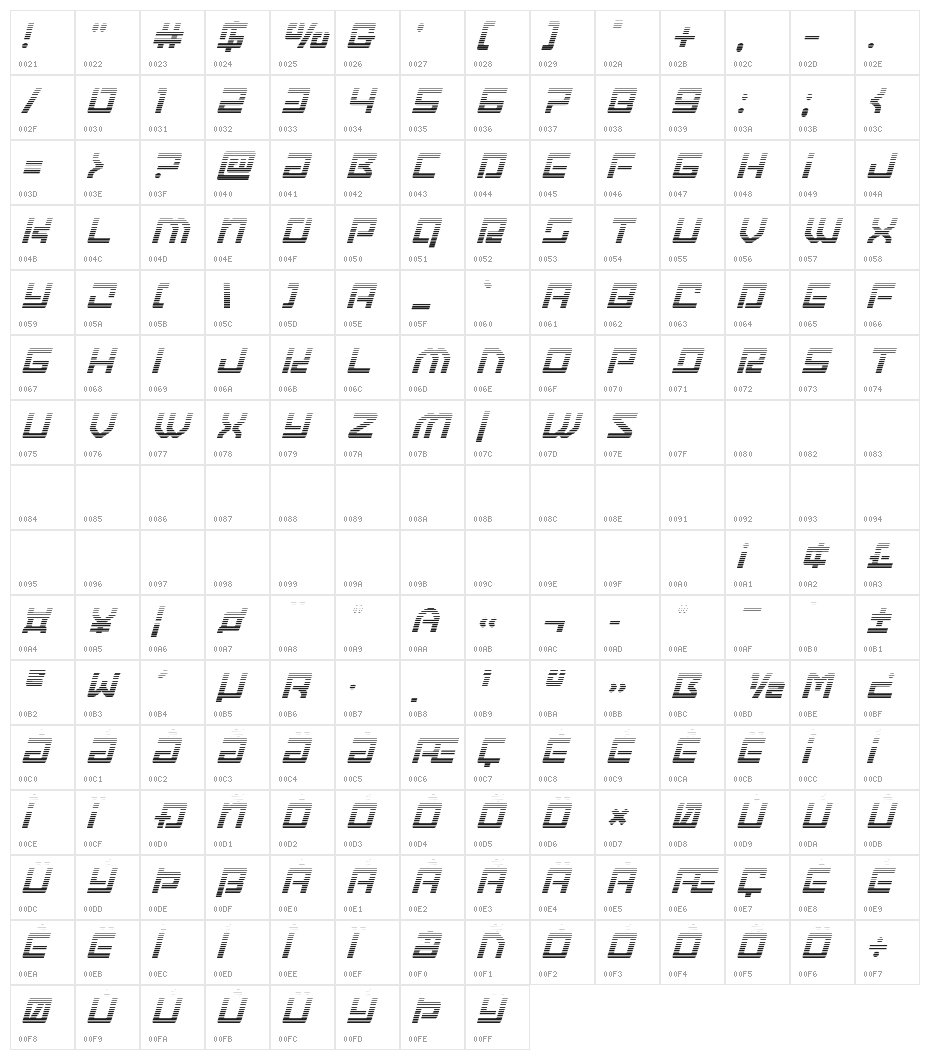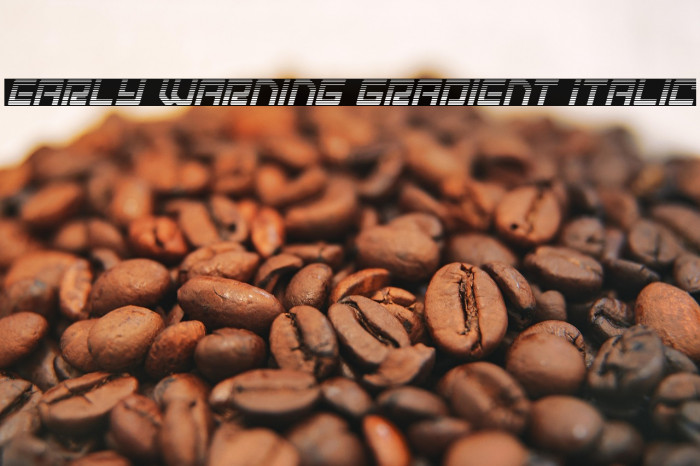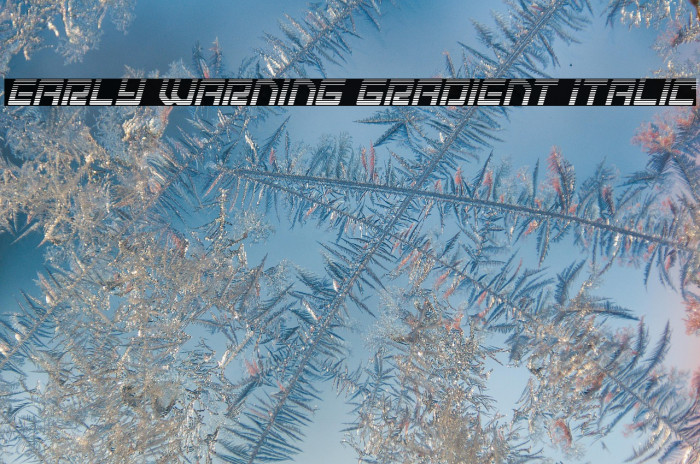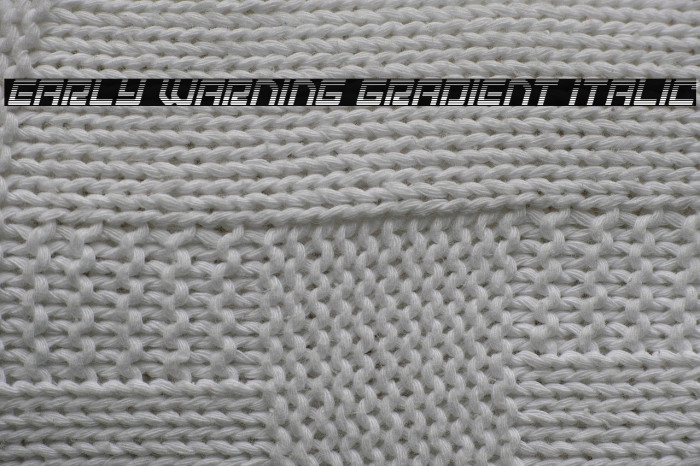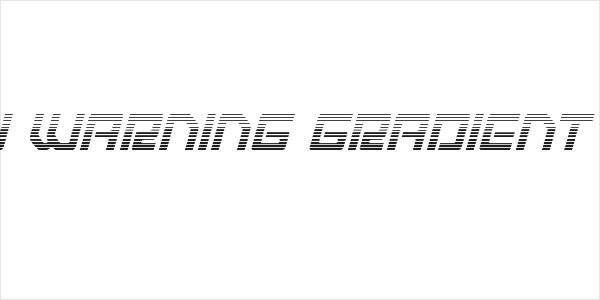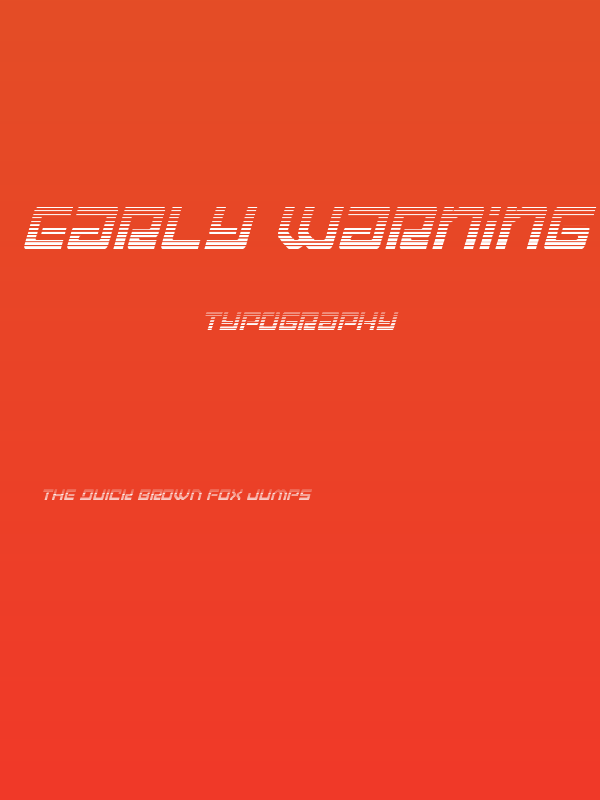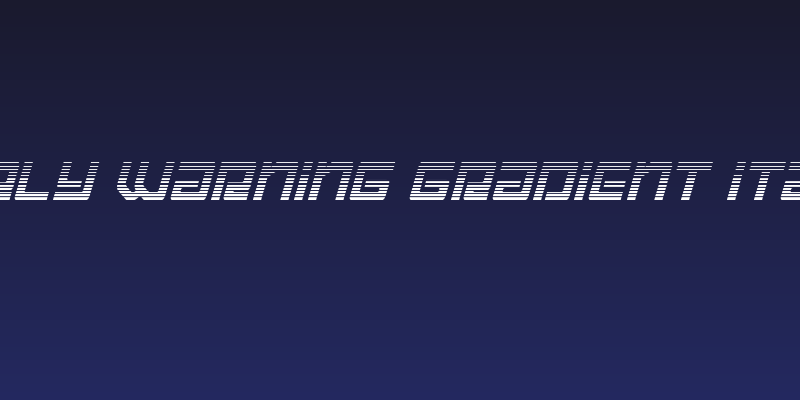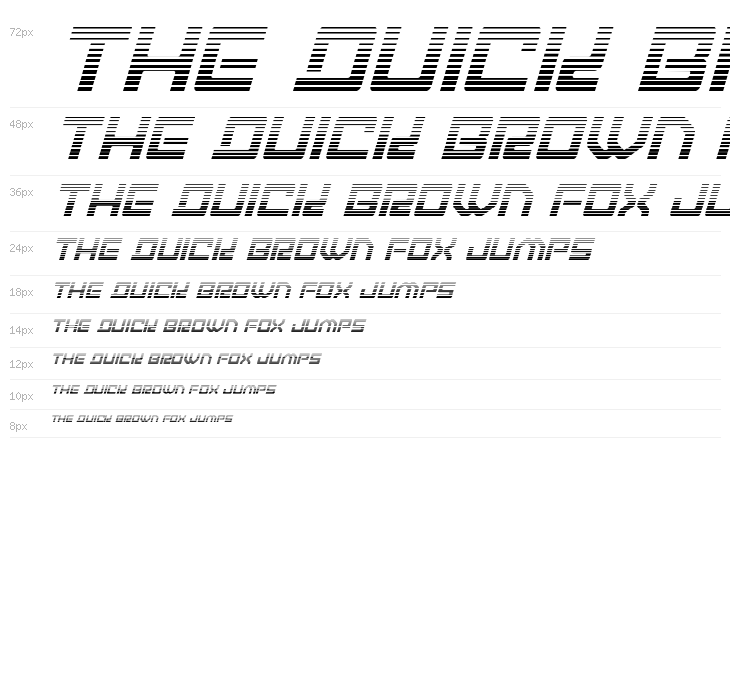
Early Warning Gradient Italic Font
Early Warning Gradient Italic Description
This font features a futuristic and dynamic design characterized by its italicized and gradient-striped appearance. Each character is composed of parallel lines that create a sense of movement and speed, making it ideal for projects that require a modern and edgy look. The uppercase and lowercase letters maintain a consistent style, with sharp angles and a geometric structure. The numbers and special characters are equally stylized, ensuring a cohesive visual identity across all elements. This font's unique design is perfect for capturing attention and conveying a sense of innovation.